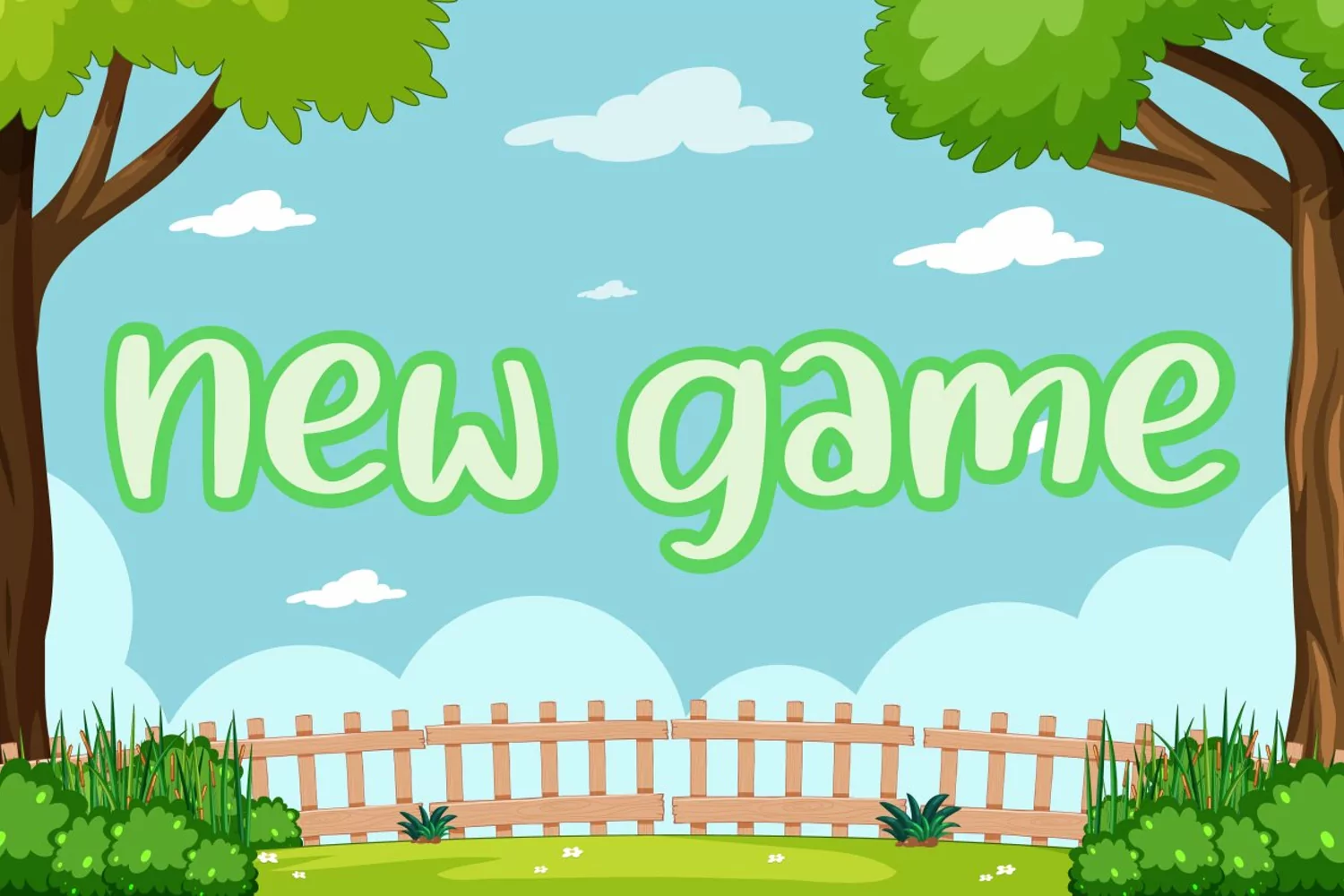
Wonderful valentine is a simple and interesting handwritten font. Its friendly feel makes this font incredibly versatile, fitting a wide range of contexts. It looks stunning on thank you cards, quotes, greeting cards, logos, business cards and every other design which needs of a art. Add it to your creative ideas and notice how it makes them stand out!